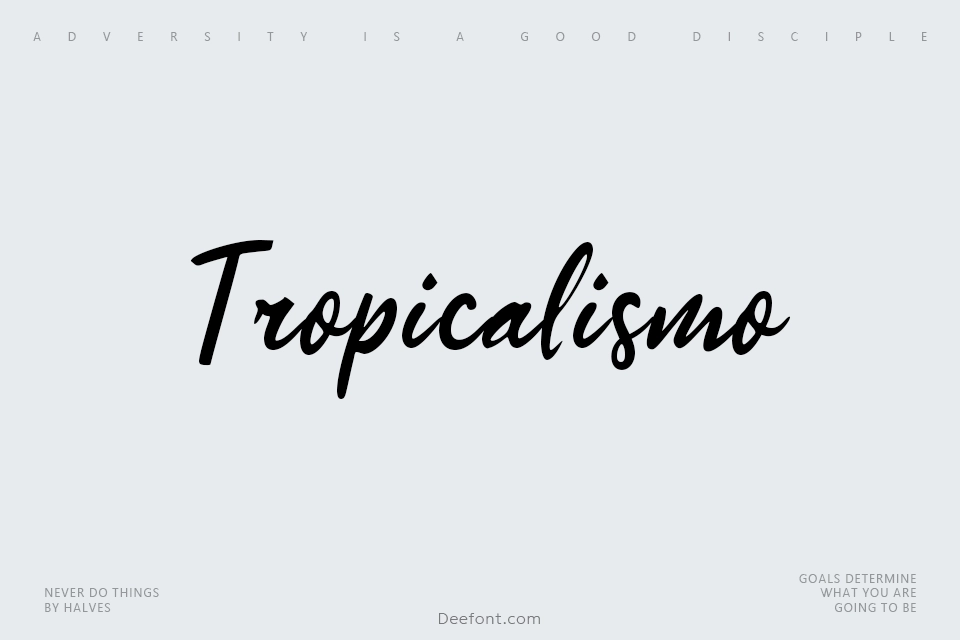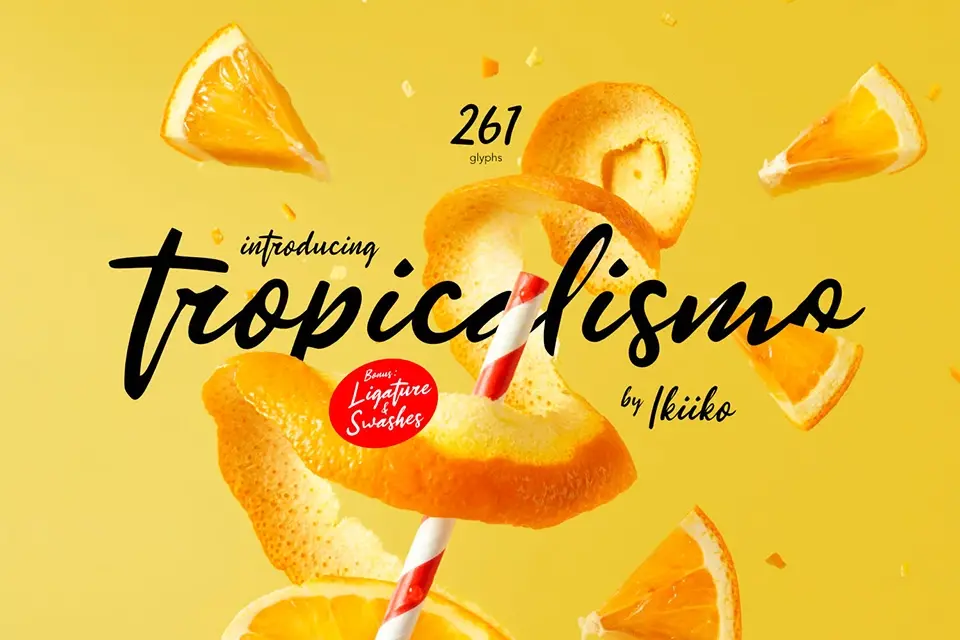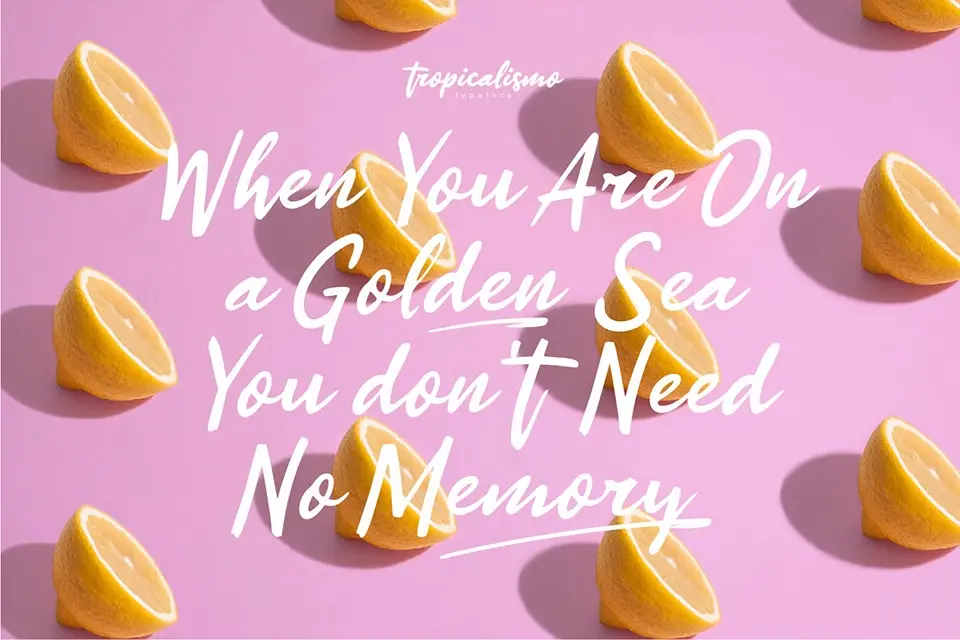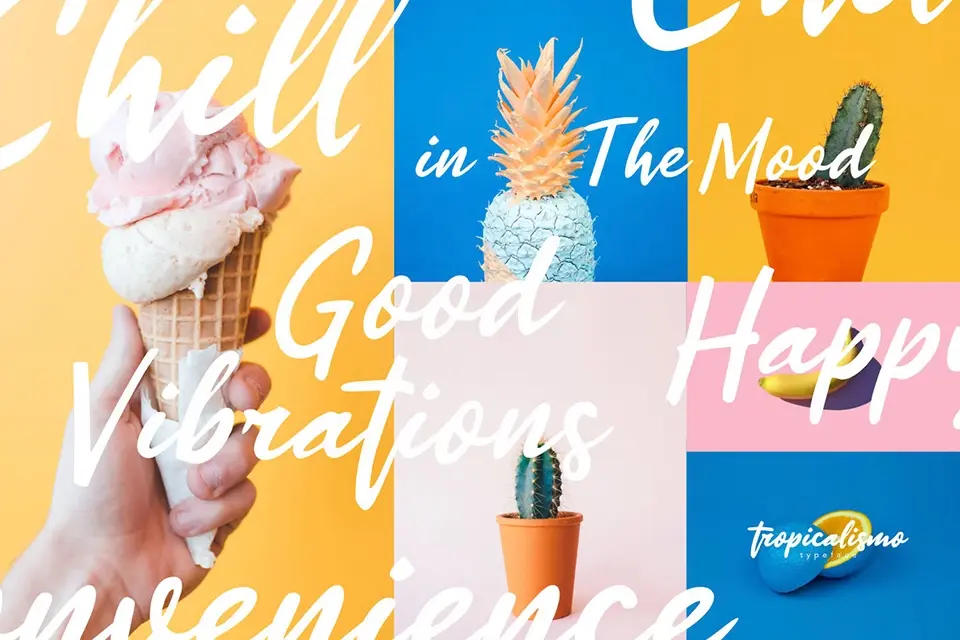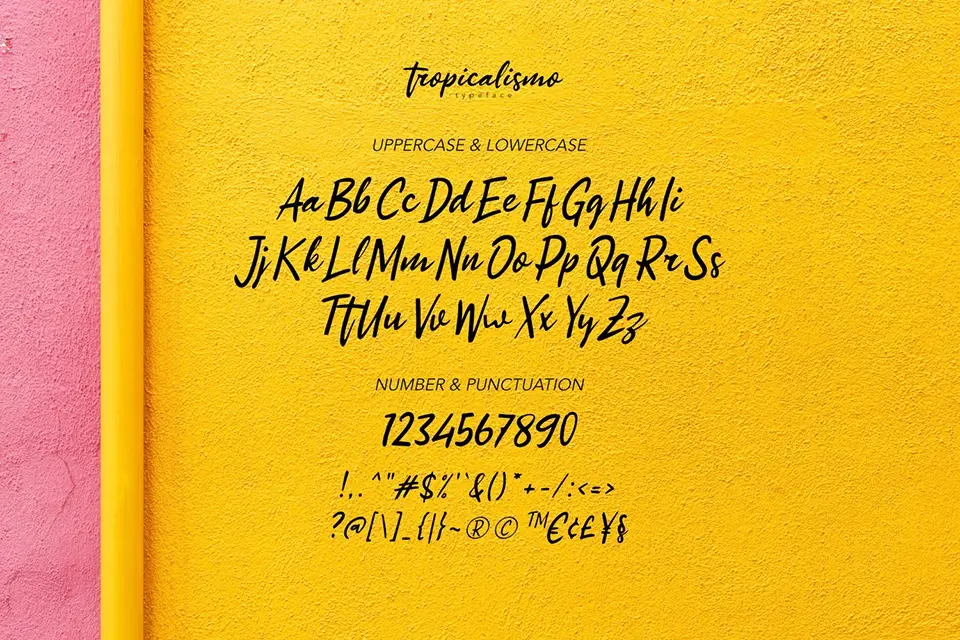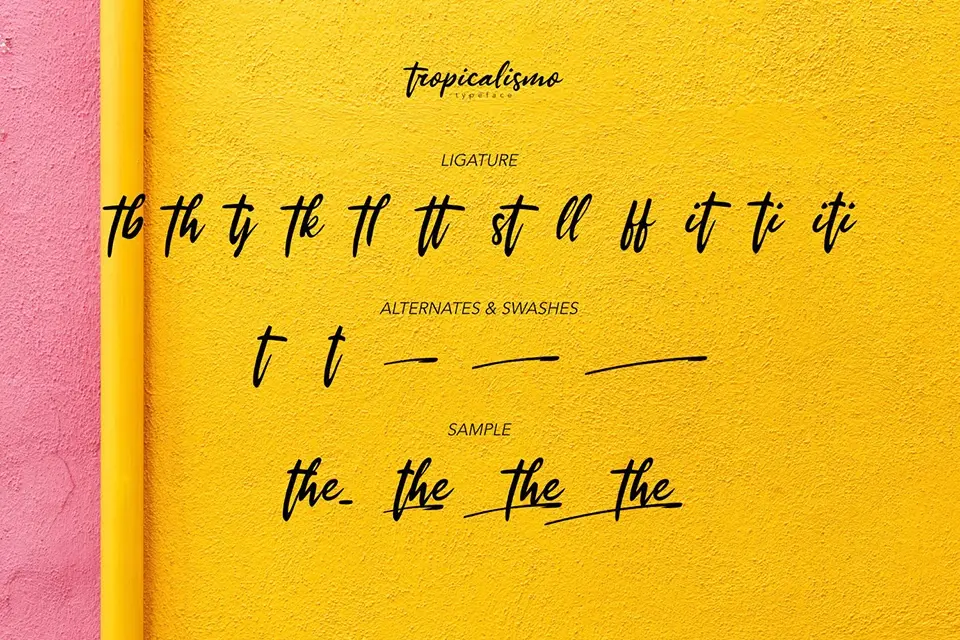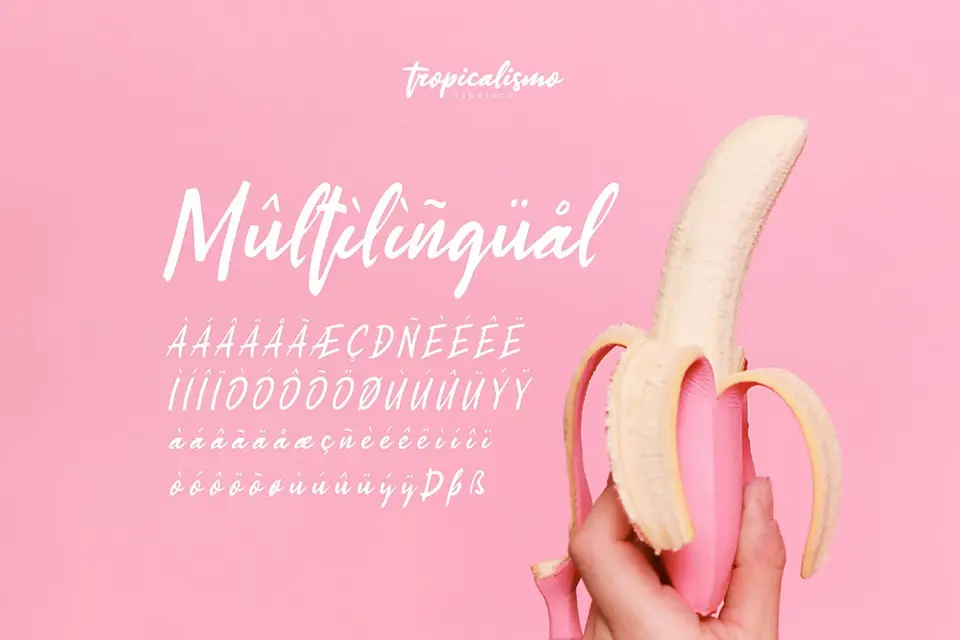
Tropicalismo Font
Tropicalismo is a captivating handwritten script font that exudes vibrant, free-spirited charm with dynamic organic curves and playful flourishes. Crafted by Ikiiko Type, this font transports viewers to sun-drenched tropical landscapes with its whimsical yet refined aesthetic. Perfect for branding, event materials, product packaging, and editorial layouts, its natural hand-lettered appearance adds authenticity and character to any design project seeking to capture the laid-back spirit of the tropics.